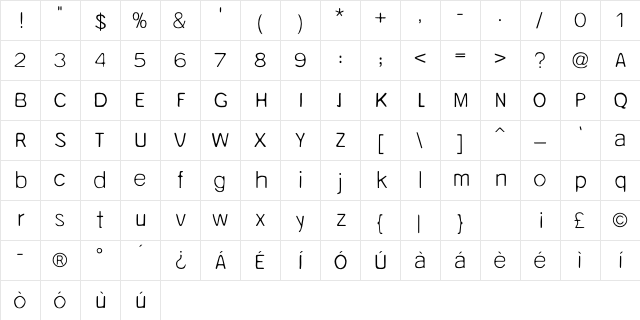
Unruly Light
Unruly Family
Design Context for Unruly
Unruly is a composed and adaptable typeface that performs quietly and consistently across a wide range of design contexts. Its slender proportions lend an understated elegance to any composition.